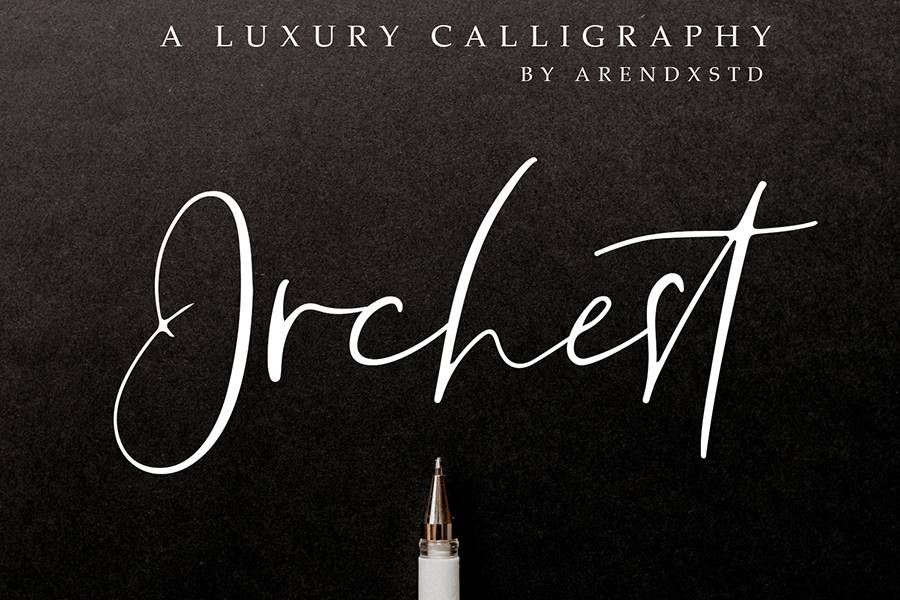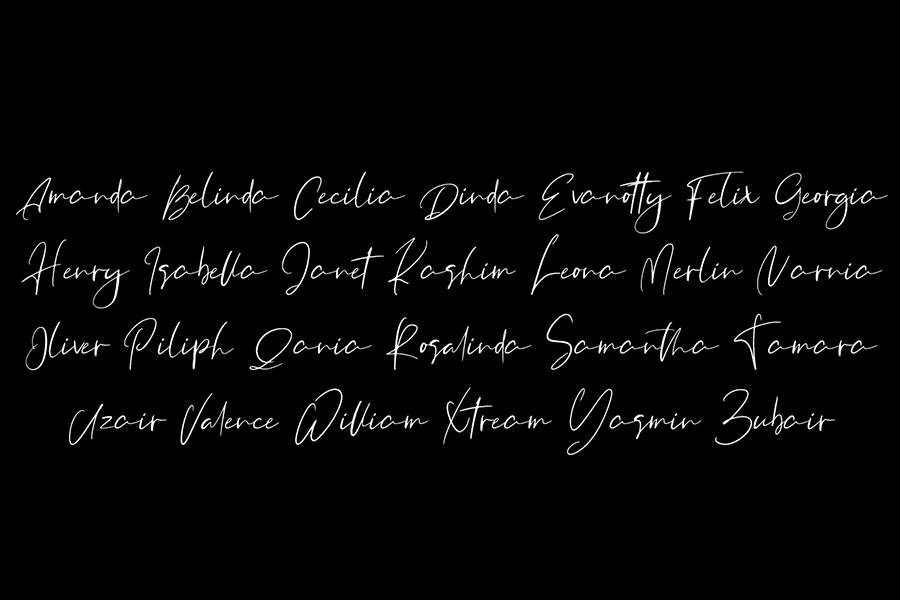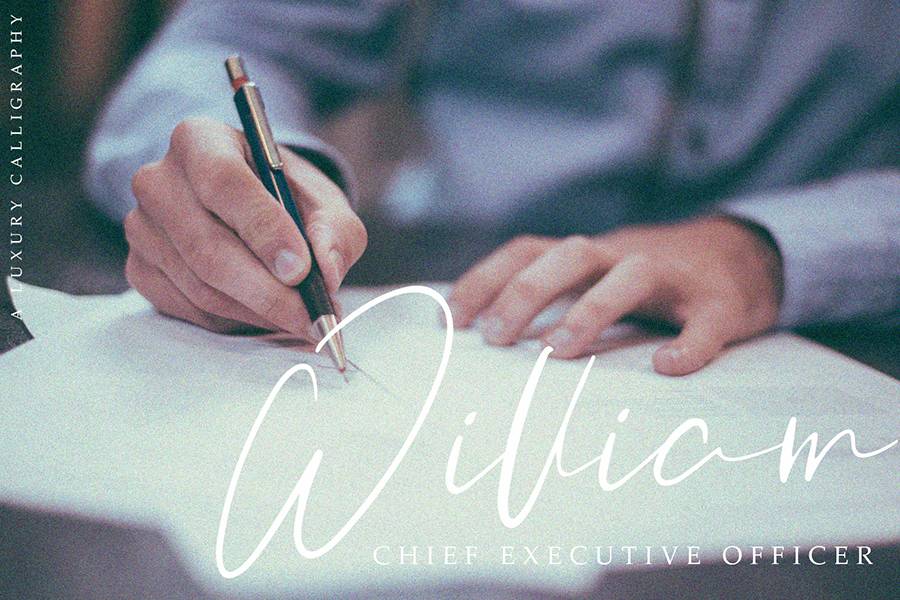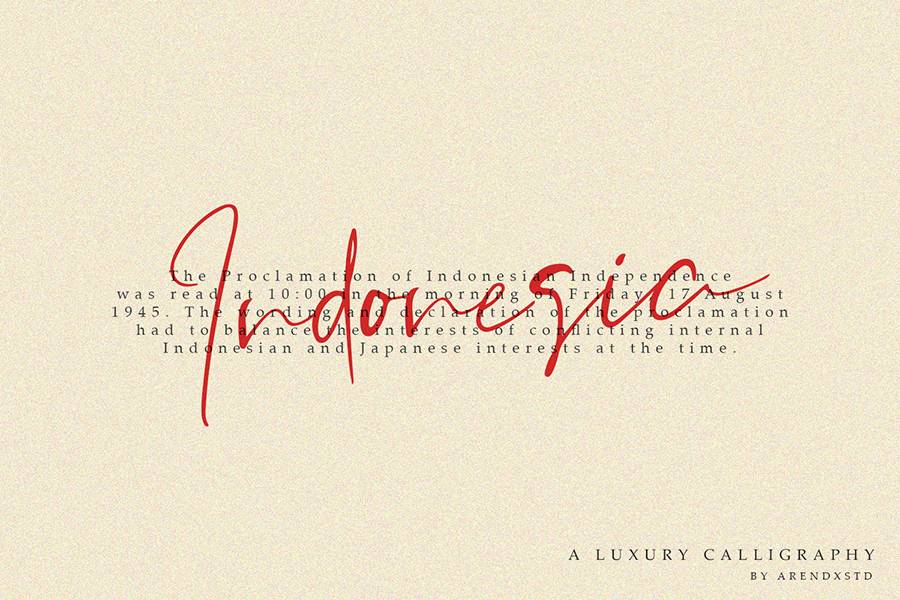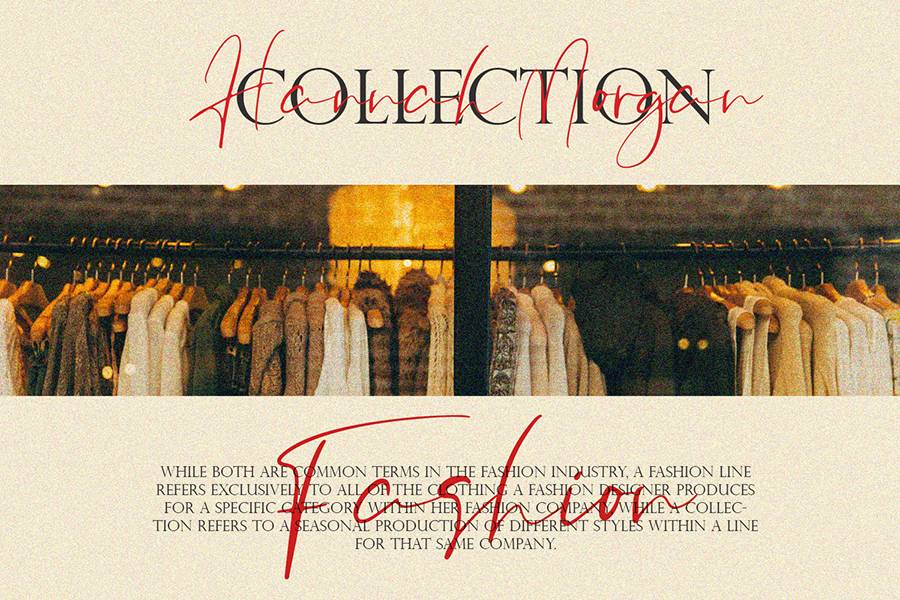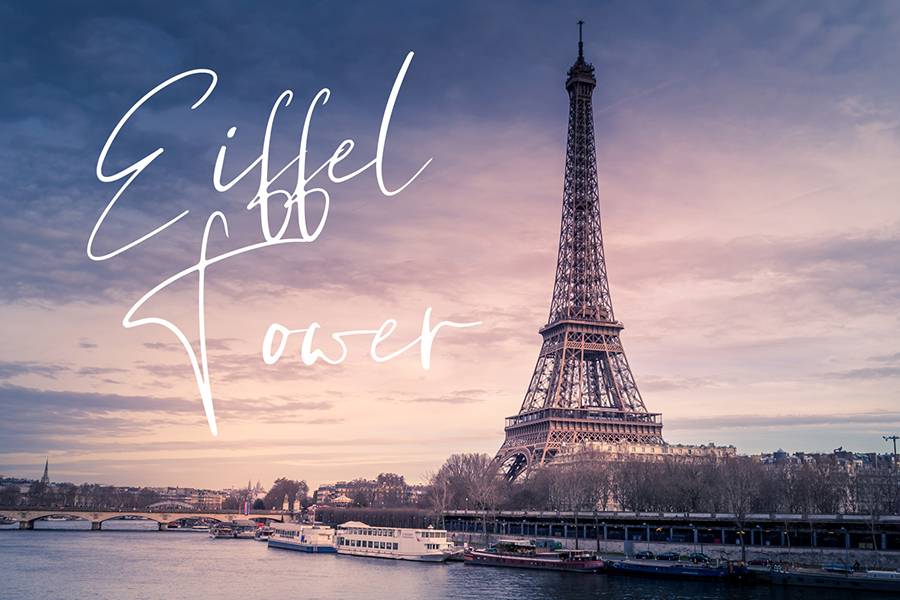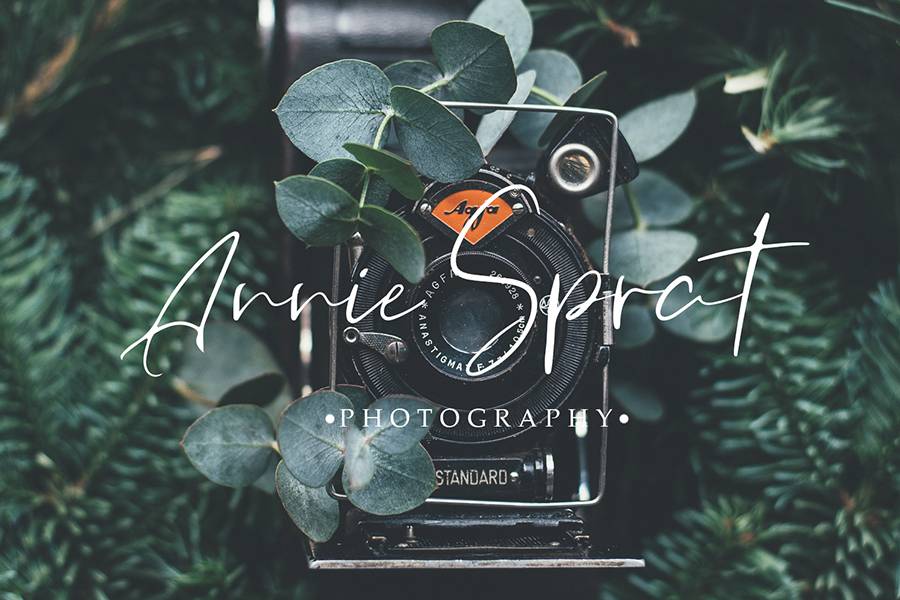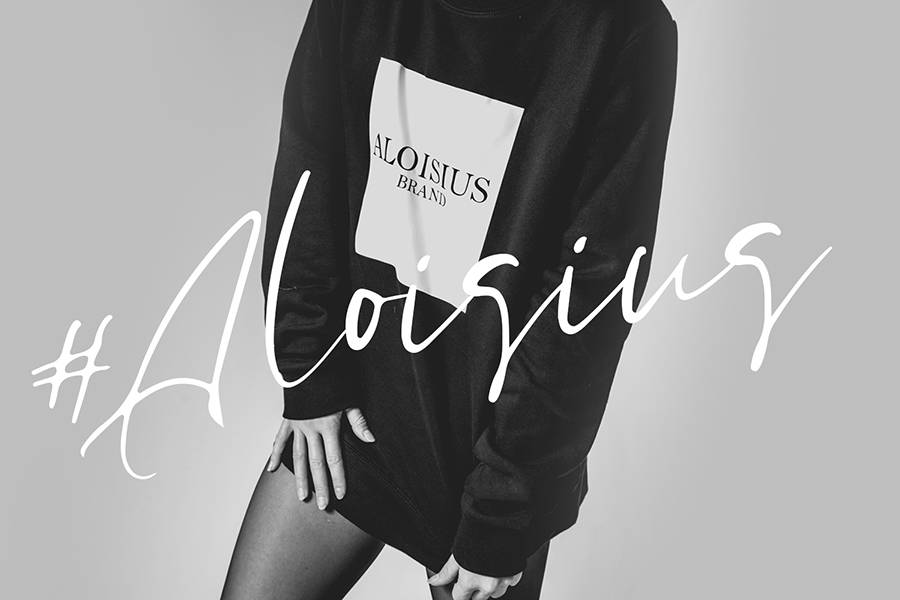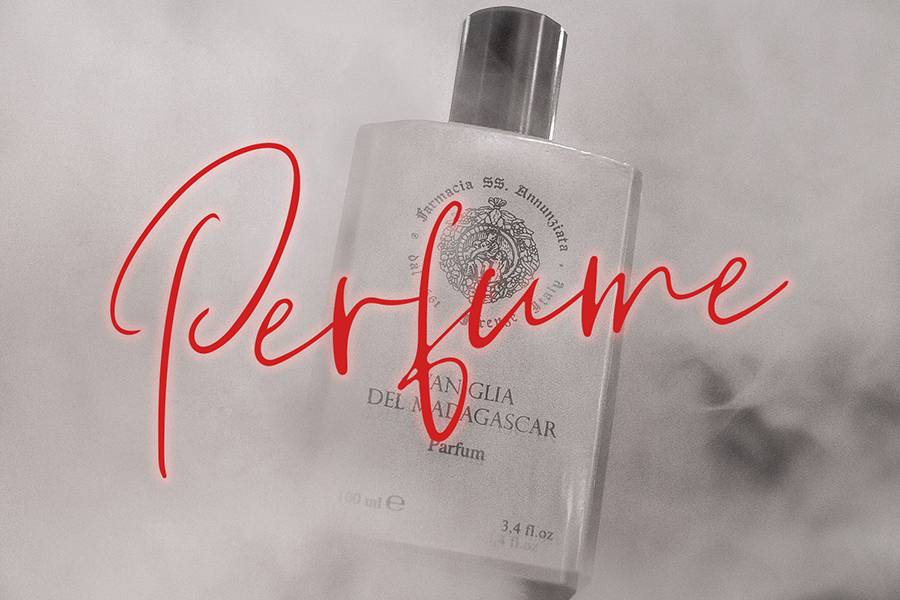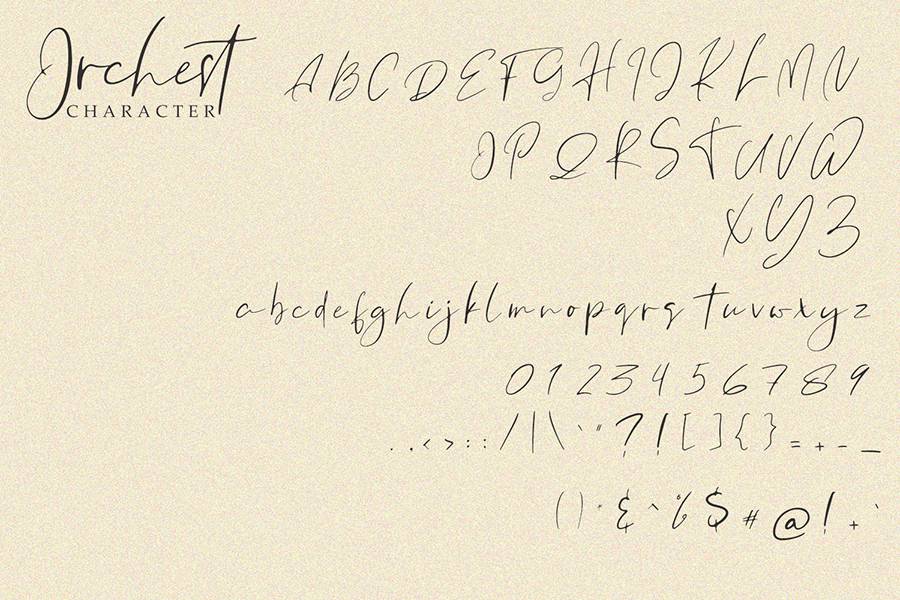
Orchest Luxurious Script is an elegant, delicate handwritten font with thin, flowing strokes and a refined, airy feel. Its script style with high contrast and graceful letterforms creates a sophisticated, modern luxury vibe, perfect for branding, invitations, and fashion design. This font works best in upscale contexts where a stylish, personal touch is desired.
Orchest Luxurious Script Font
About Orchest Luxurious Script Font
| Font family | Orchest Luxurious Script Font |
| Designer | Arendxstd |